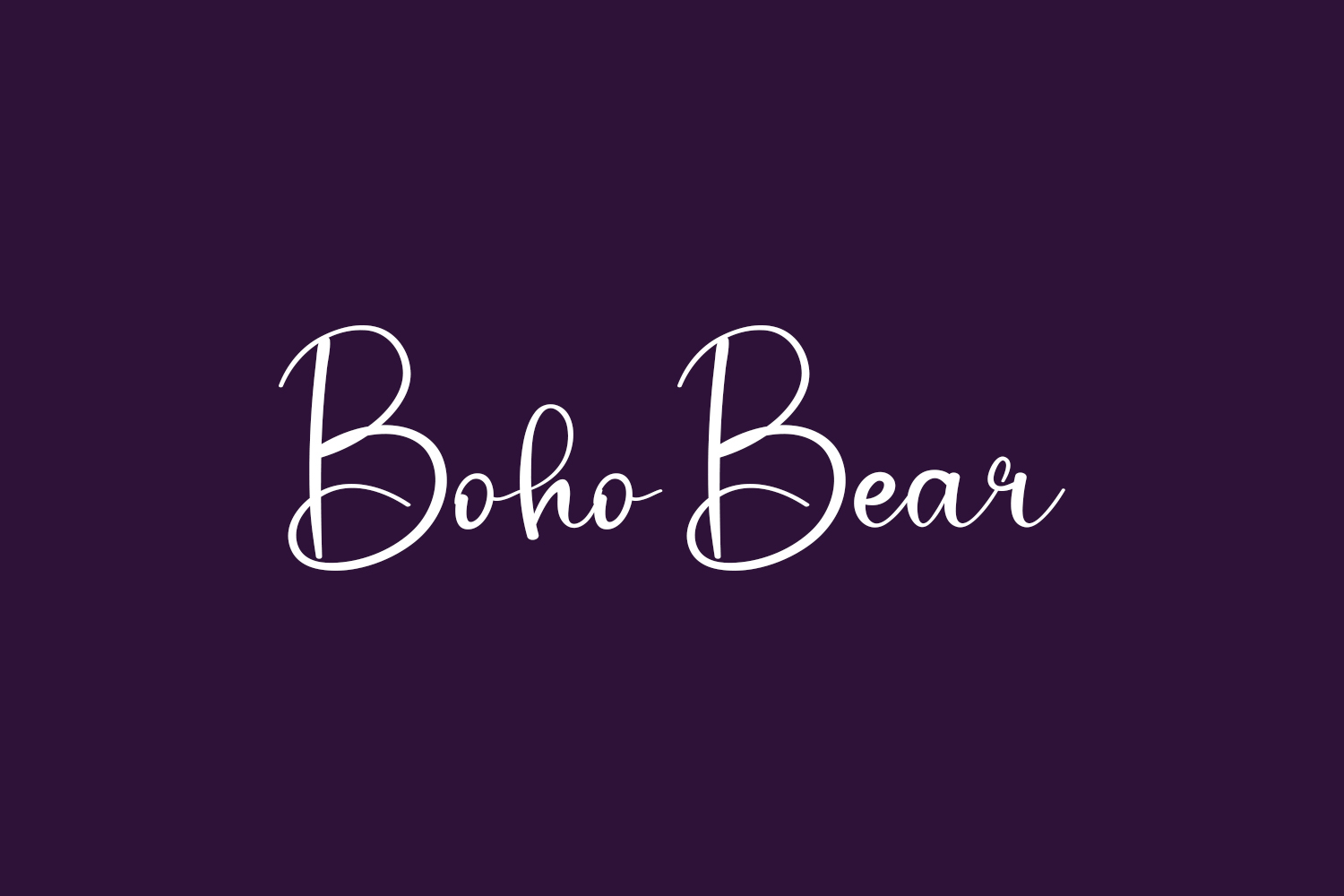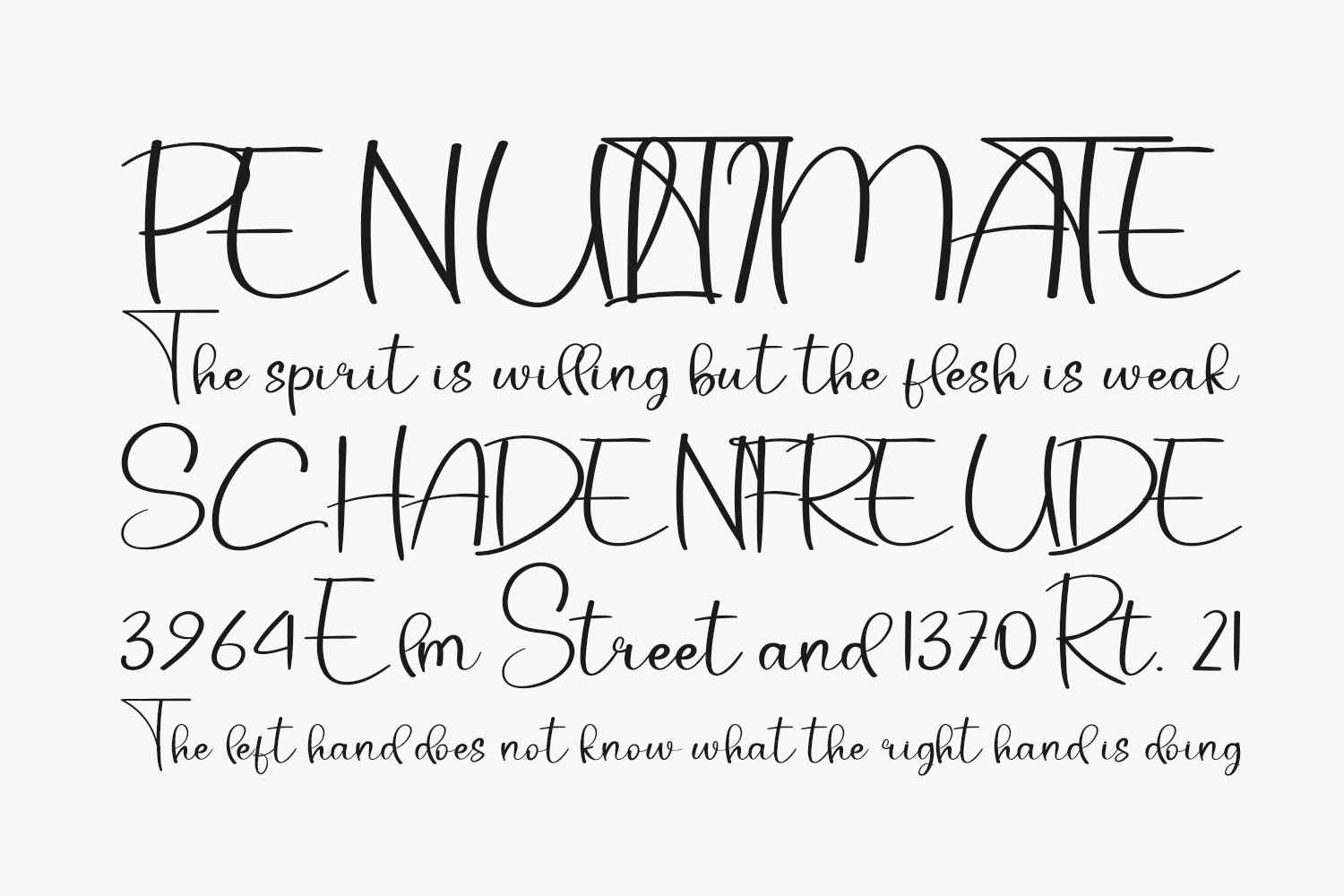
Discover Boho Bear Free Font, a delightful and approachable handwritten font. Whether crafting, engaging in digital design, creating presentations, or designing greeting cards, this font has the versatility to become your preferred choice for any occasion. Embrace the playful charm of Boho Bear for all your creative ventures. Boho Bear Free Font was designed by Etik Fatimah and is free for personal use only. Please purchase the full version for commercial use.